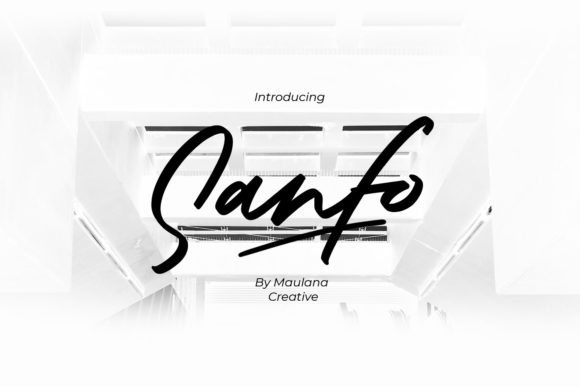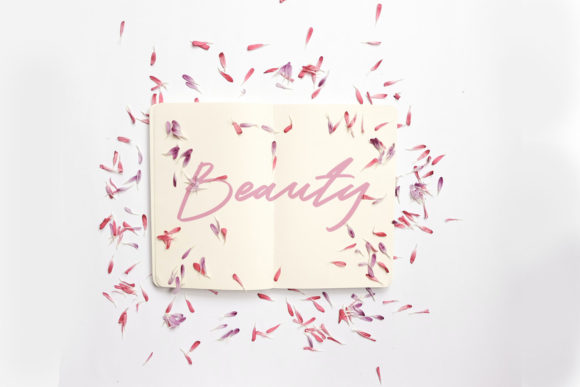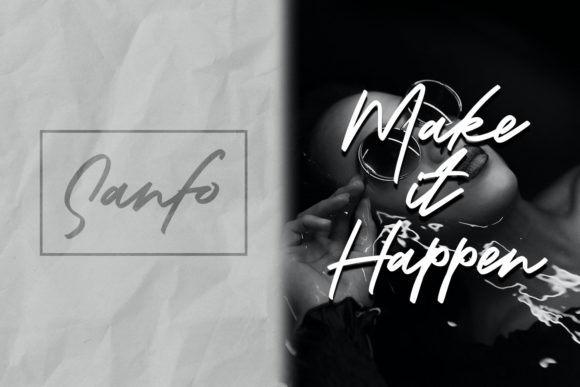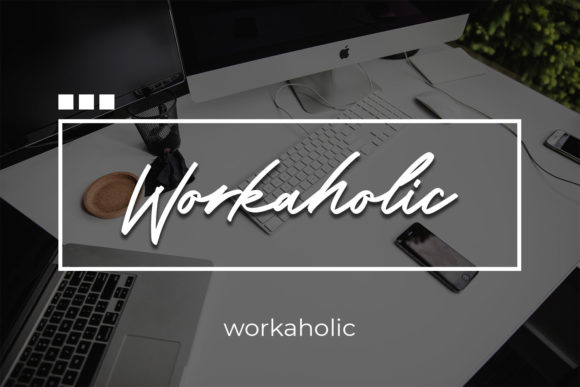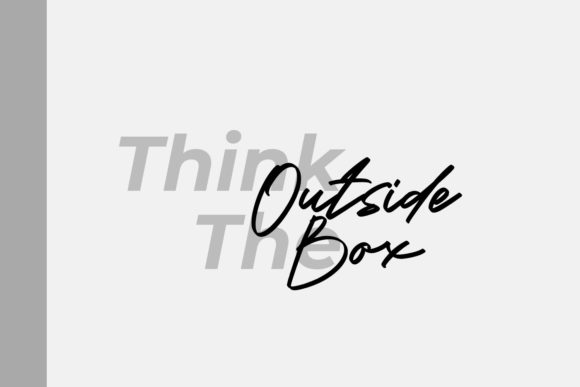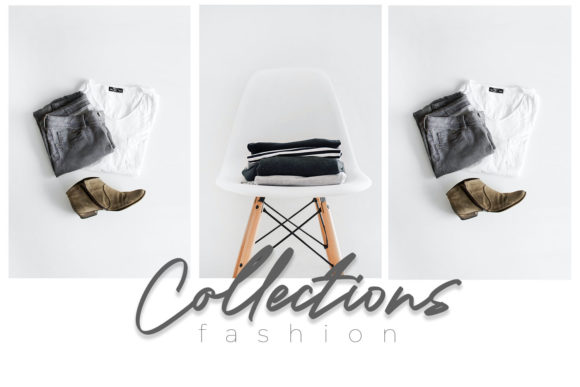
Introduction to Sanfo Font
Sanfo is a stylish and unique handwritten font.
Fall in love with its incredibly versatile style and use it to create gorgeous wedding invitations, beautiful stationary art, eye-catching social media posts, and much more .
Key Features of Sanfo Font
Why Choose Sanfo Font?
Sanfo Font offers exceptional quality and versatility, making it a valuable addition to your design toolkit. Whether you’re creating for personal projects or commercial use, Sanfo Font delivers professional results.